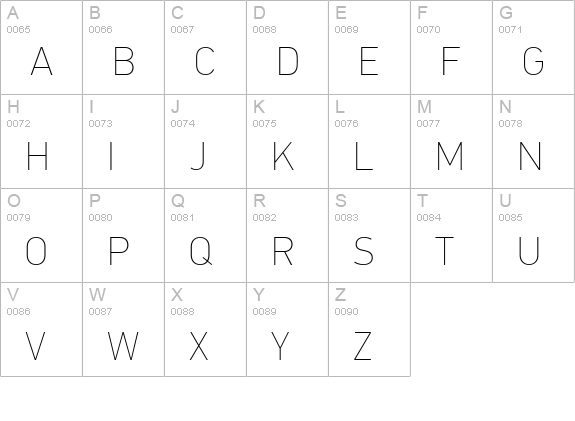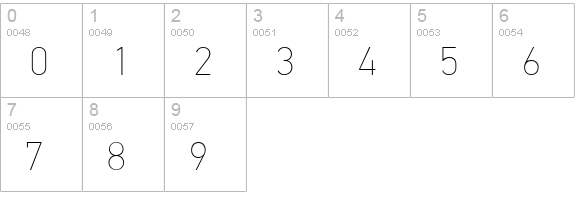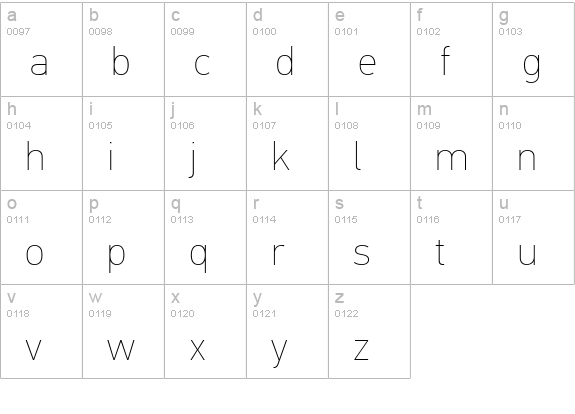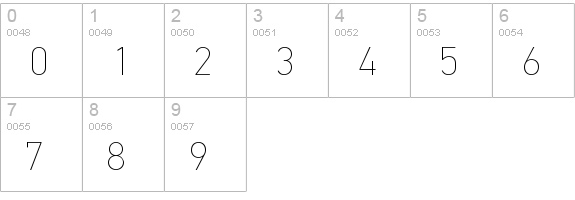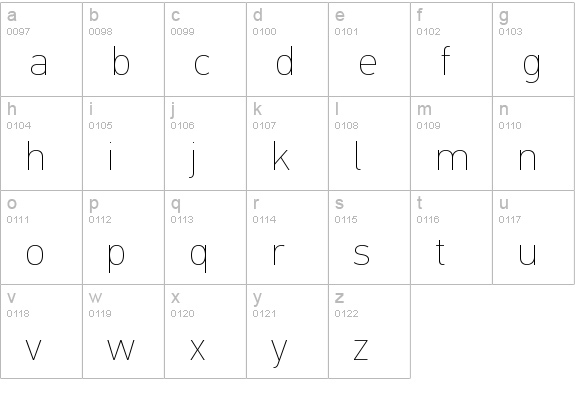
PFDinTextPro-ExtraThin Font Details
PFDinTextPro-ExtraThin font is a sleek and modern typeface that exudes elegance and sophistication. With its extra-thin weight, this font is perfect for creating a subtle and refined look in your designs. Whether you're designing a minimalist website, a high-end magazine layout, or a stylish branding project, PFDinTextPro-ExtraThin font will add a touch of sophistication to your work. The best part? PFDinTextPro-ExtraThin font is available for free download at FontsMarket.com. Now you can elevate your designs with this stunning typeface without breaking the bank. Don't miss out on this opportunity to enhance your projects with the timeless beauty of PFDinTextPro-ExtraThin font. Download it now and start creating stunning visuals that will leave a lasting impression.